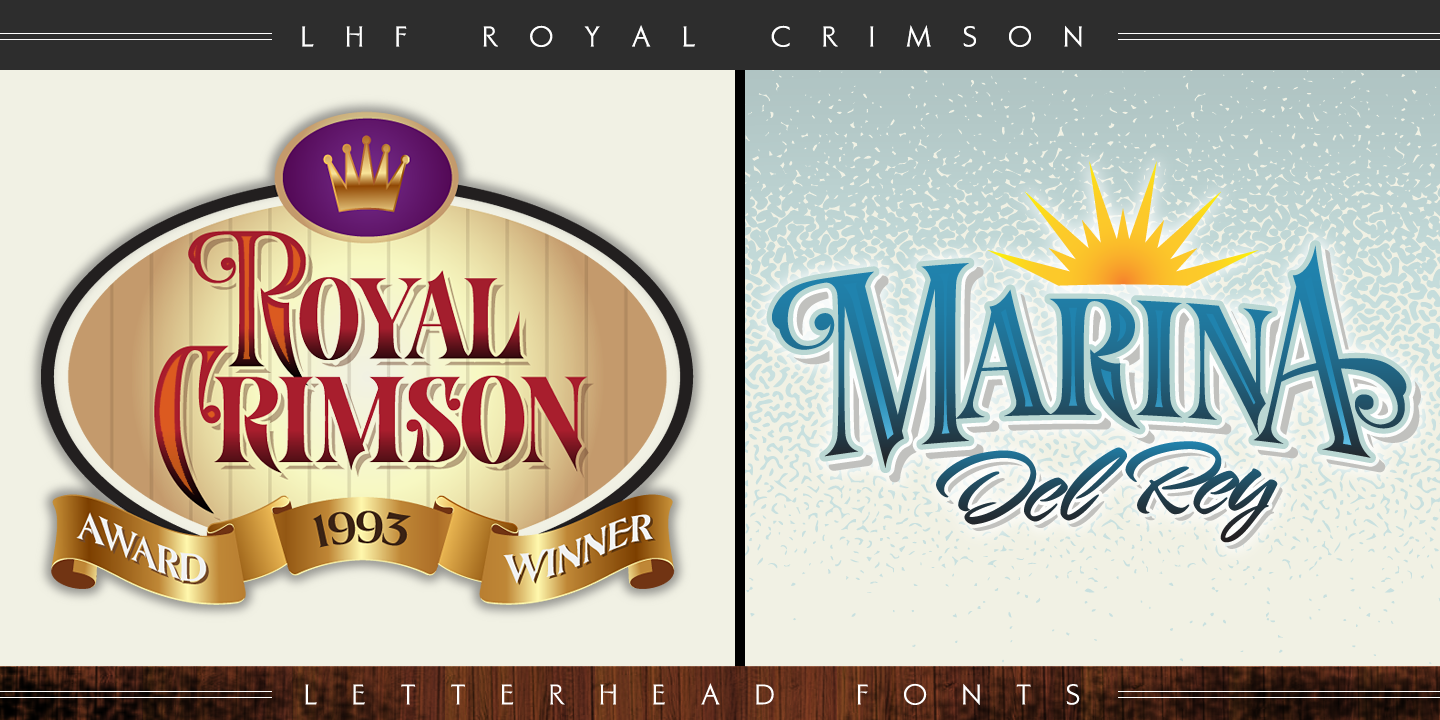
The LHF Royal Crimson Font is excellent for royal palace exhibitions, luxury wine labels, imperial wedding invitations, aristocratic estate branding, prestigious award ceremonies, high-end jewelry catalogs, royal commemorative materials, and exclusive private club signage. This majestic typeface works beautifully in applications where regal authority and imperial magnificence need to be emphasized, making it perfect for luxury brands that want to communicate supreme elegance and royal heritage through commanding, sovereign-inspired typography.
What makes LHF Royal Crimson Font exciting is its imperial grandeur and royal blood heritage that captures the essence of monarchial power and aristocratic refinement. The font's noble letterforms and crimson-inspired character design create an atmosphere of royal court elegance and imperial authority, making it ideal for brands that want to evoke the splendor of royal palaces and the dignity of noble lineage. Its sovereign presence ensures that every application feels crowned with authentic royal majesty and imperial sophistication.
The LHF Royal Crimson Font family typically includes regular, bold, and ornamental weights, often featuring crown elements, royal flourishes, and imperial decorative motifs that enhance its monarchial appeal. Many versions include heraldic symbols, royal crests, and specialized characters that provide designers with comprehensive tools for creating authentic royal design projects with genuine imperial credibility and aristocratic elegance.
For designers working on projects that require royal authenticity and imperial credibility, LHF Royal Crimson Font Free Download provides exceptional sovereign appeal. Its ability to instantly communicate royal heritage and imperial authority makes it an invaluable choice for luxury brands, cultural institutions, and any project requiring typography that embodies the magnificence of royal courts, the dignity of aristocratic tradition, and the timeless appeal of imperial elegance and monarchial sophistication.